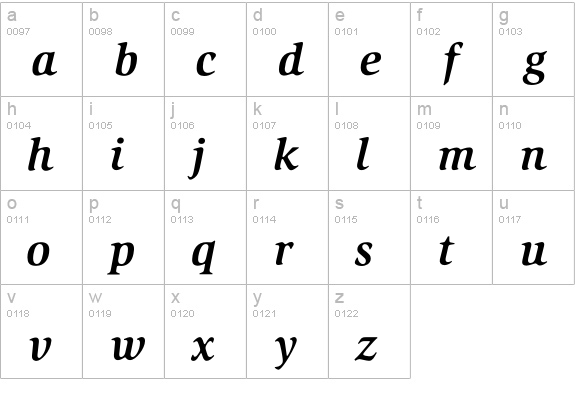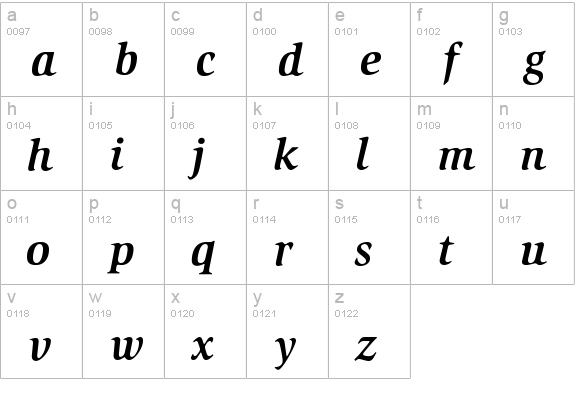
SlimbachBoldItalic Font Details
SlimbachBoldItalic is a sleek and sophisticated font that effortlessly combines boldness with elegance. The graceful curves and strong lines of this typeface make it perfect for adding a touch of sophistication to any design project. Whether used for headings, captions, or body text, SlimbachBoldItalic is guaranteed to make a statement. This font is not only visually stunning, but it also offers a sense of versatility. Its bold and italicized variations allow for creative expression and emphasize important elements within your designs. From sleek modern layouts to timeless classic designs, SlimbachBoldItalic can adapt to any style or theme. One of the best features of SlimbachBoldItalic is that it is freely available for download at FontsMarket.com. This means that you can easily access and utilize this font in your projects without any hassle or cost. Whether you're a professional designer or an amateur enthusiast, having access to high-quality free fonts like SlimbachBoldItalic can make a significant difference in the outcome of your designs. So, if you're looking for a font that effortlessly combines boldness, sophistication, and versatility, look no further than SlimbachBoldItalic. Download it for free at FontsMarket.com and elevate your designs to new heights.